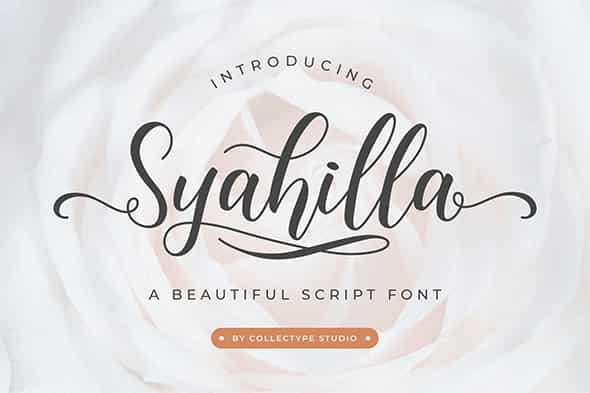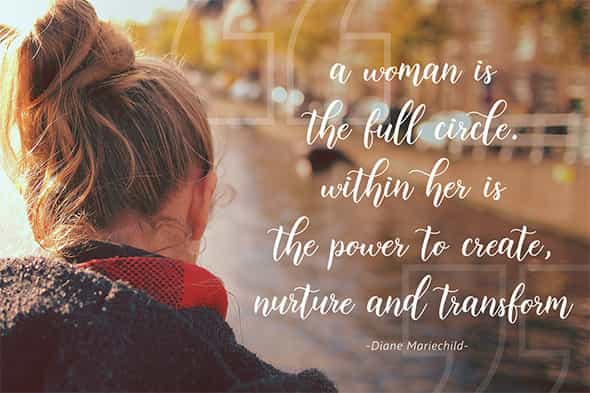
Discover Syahilla Font, part of the Calligraphy Handwritten collection—a versatile and unique font perfect for adding a personal touch to your projects. Download it for free and enjoy crafting designs with style, from invitations to social media posts. This font is available exclusively for personal use, giving you the freedom to create without limits. Unlock your creativity with Syahilla Font today!
Syahilla is a beautiful script font that has an artificial hand lettering design that looks natural. This font is fabulous for many different projects including invitation, logos & branding, wedding designs, social media posts, photography, watermark, stationery, labels, product designs advertisements and any projects that need the handwriting look.